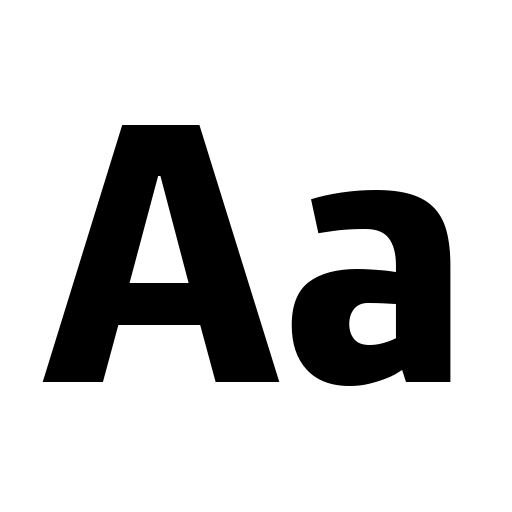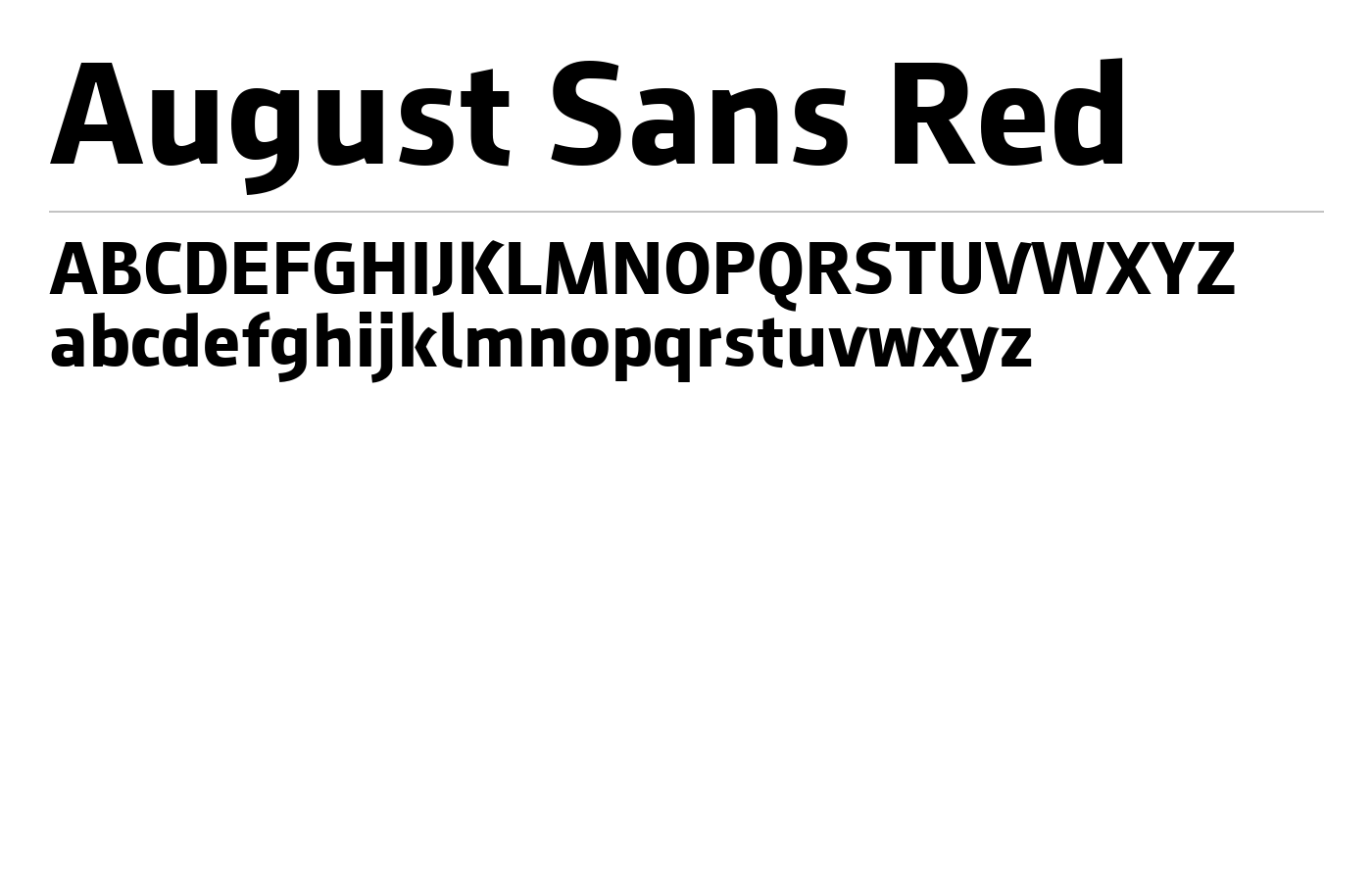
August Sans Red is a bold, modern sans serif font with a clean and sturdy appearance. It features a strong presence with slightly condensed letterforms and a medium x-height, making it highly readable and impactful for headlines, logos, and branding. Its sharp edges and uniform strokes give it a confident, contemporary feel suited for professional and dynamic design projects.
August Sans Red Font
About August Sans Red Font
| Font family | August Sans Red Font |
| Designer | Ingo Zimmermann |